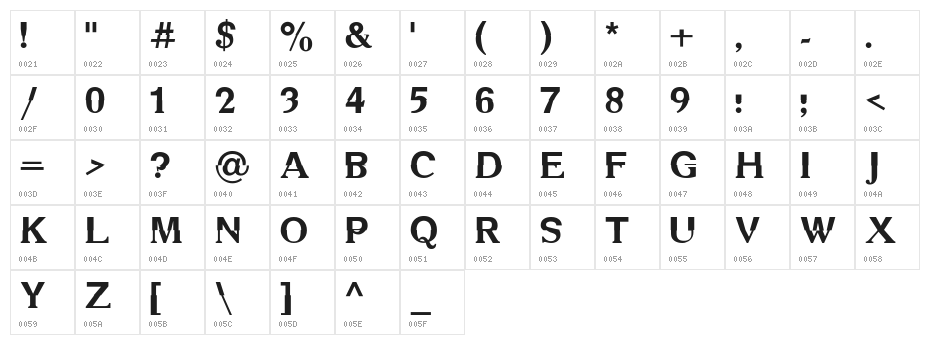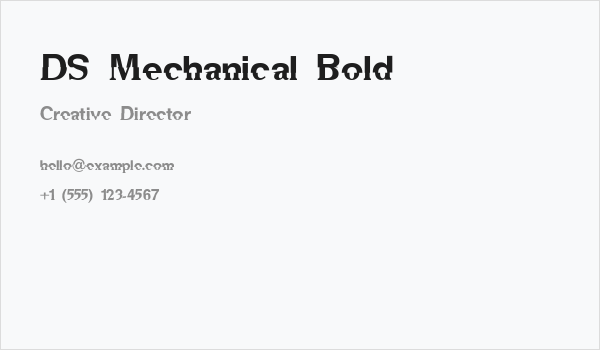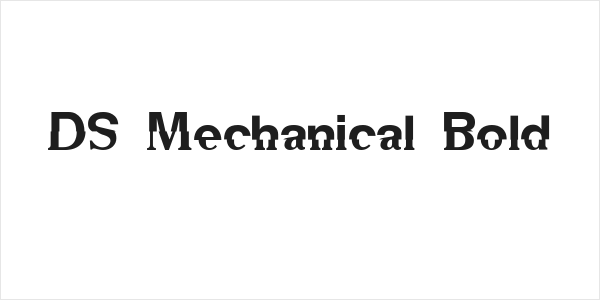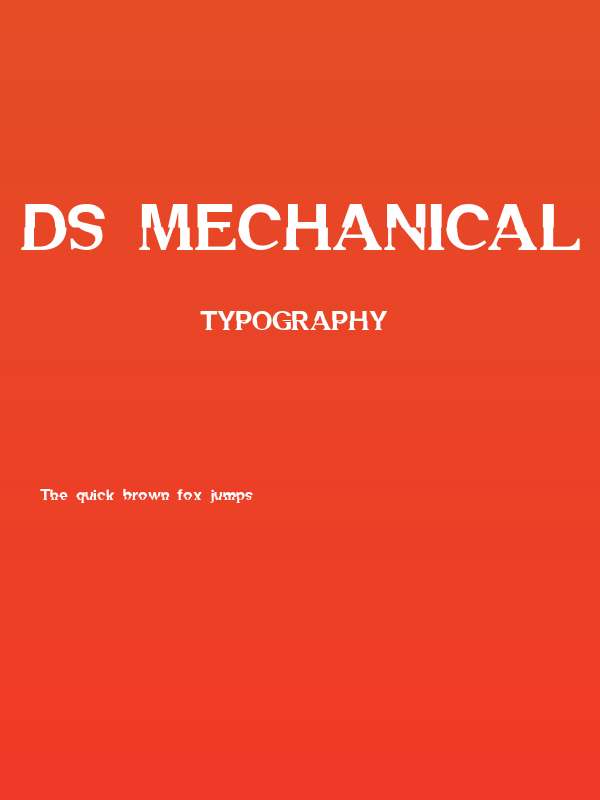
DS Mechanical Bold Font
DS Mechanical Bold Description
This font features a bold and robust design with strong, mechanical influences. The uppercase letters exhibit a uniform height with sharp, angular serifs that add a sense of precision and strength. The lowercase letters maintain a consistent weight, providing a balanced look across different text sizes. Numbers are bold and clear, making them highly legible, while the special characters are distinct and well-defined. The overall style is industrial and modern, suitable for projects that require a strong visual impact.
| Overall Style | Modern, Industrial |
| Use Case | Headlines, Logos, Signage |
| Proposed Projects | Ideal for branding, signage, posters, and any project requiring a bold, industrial look. |